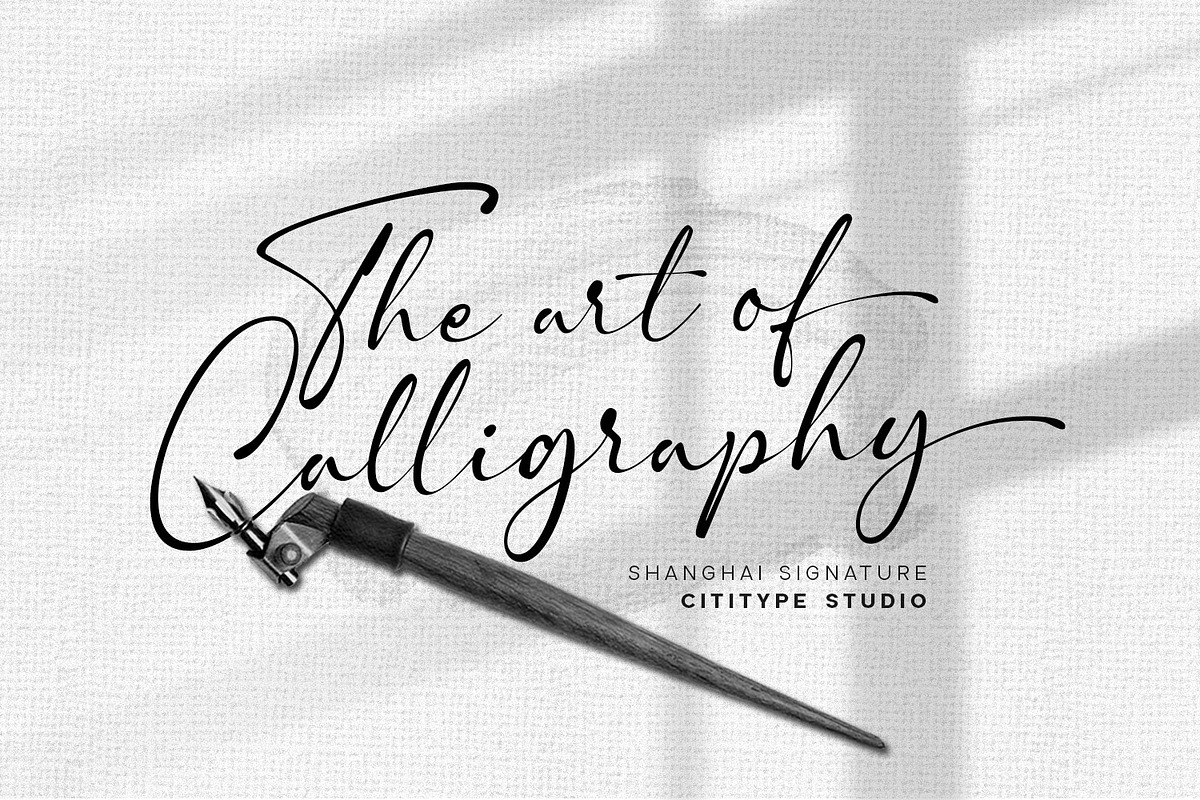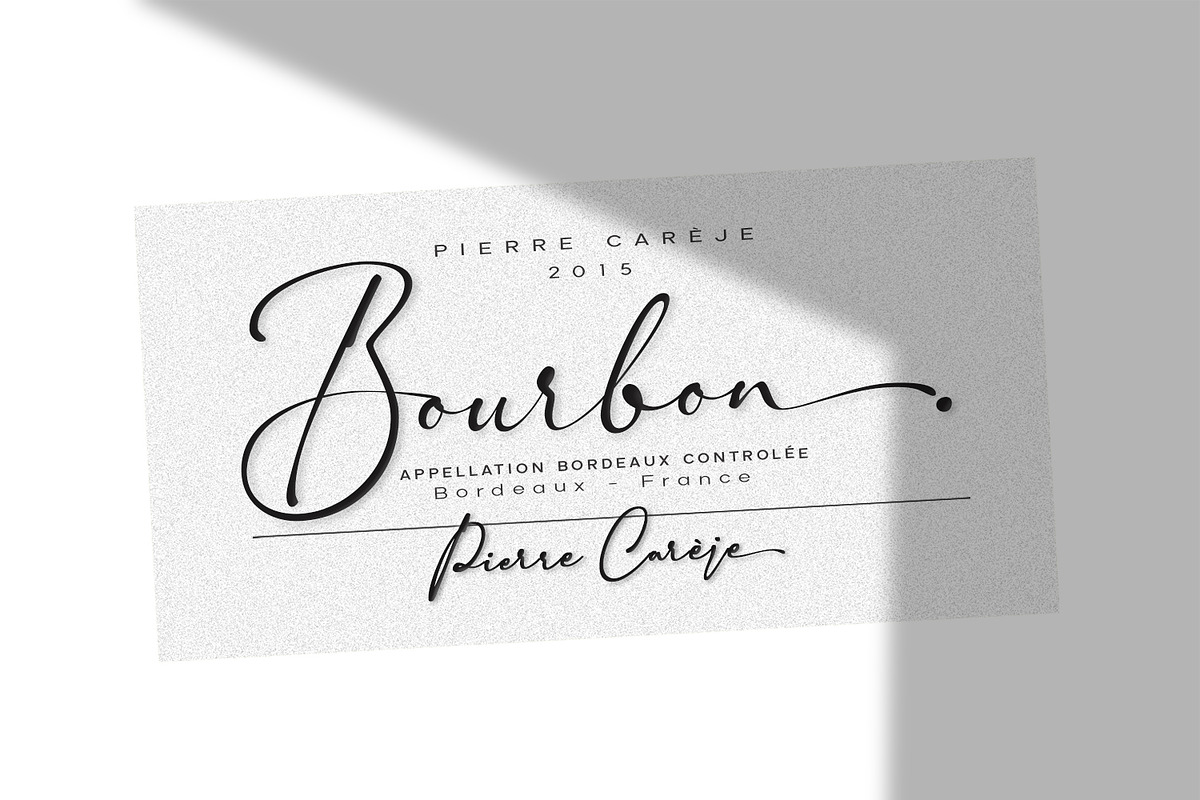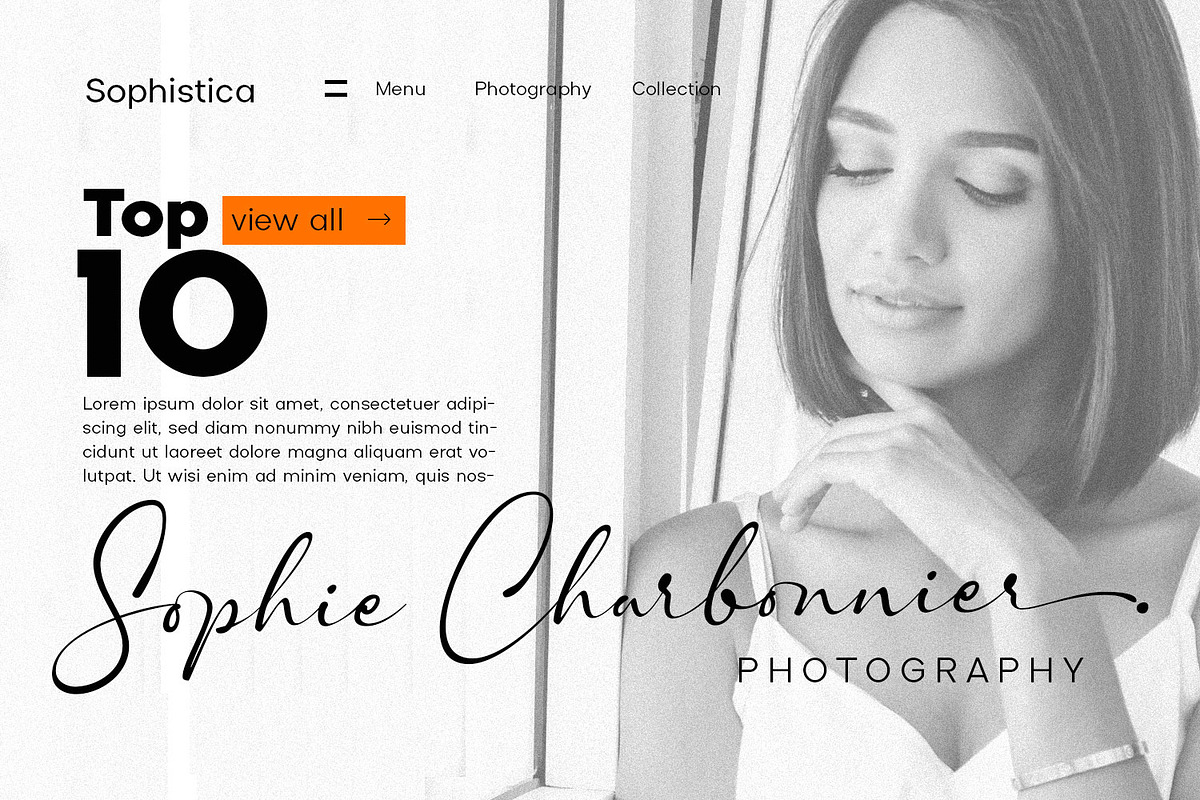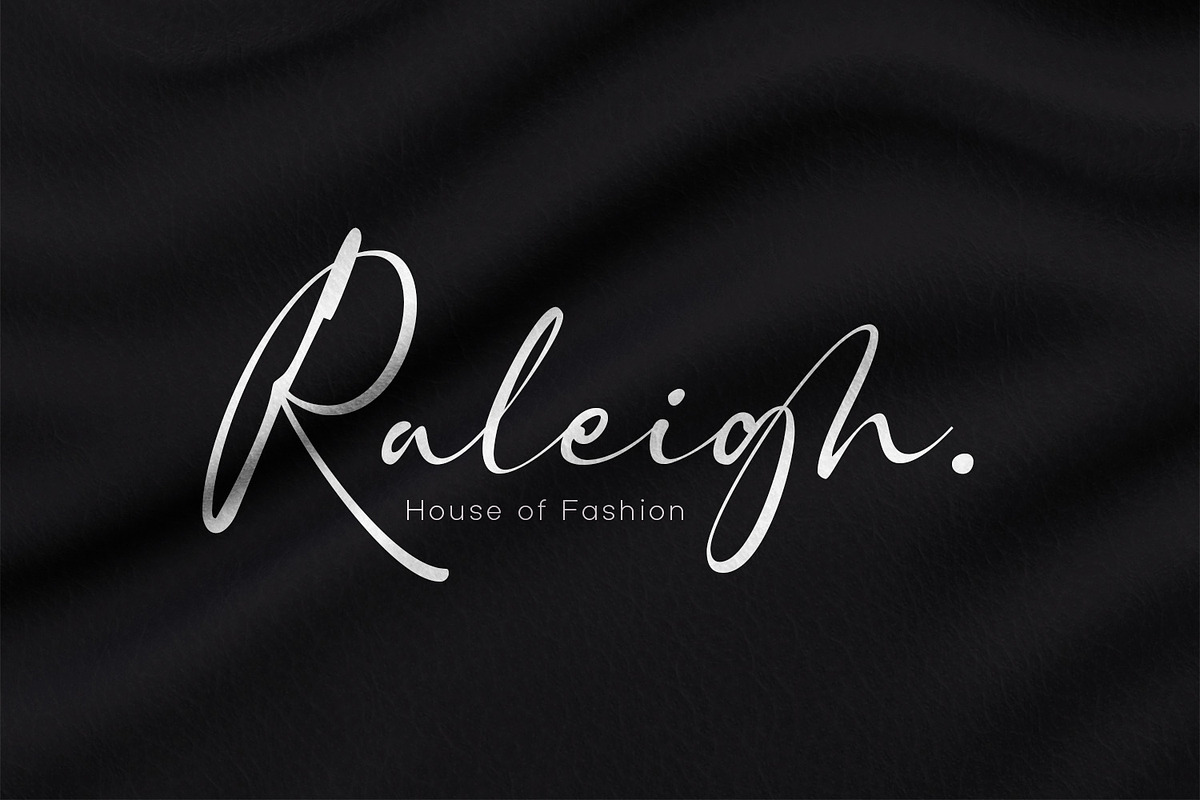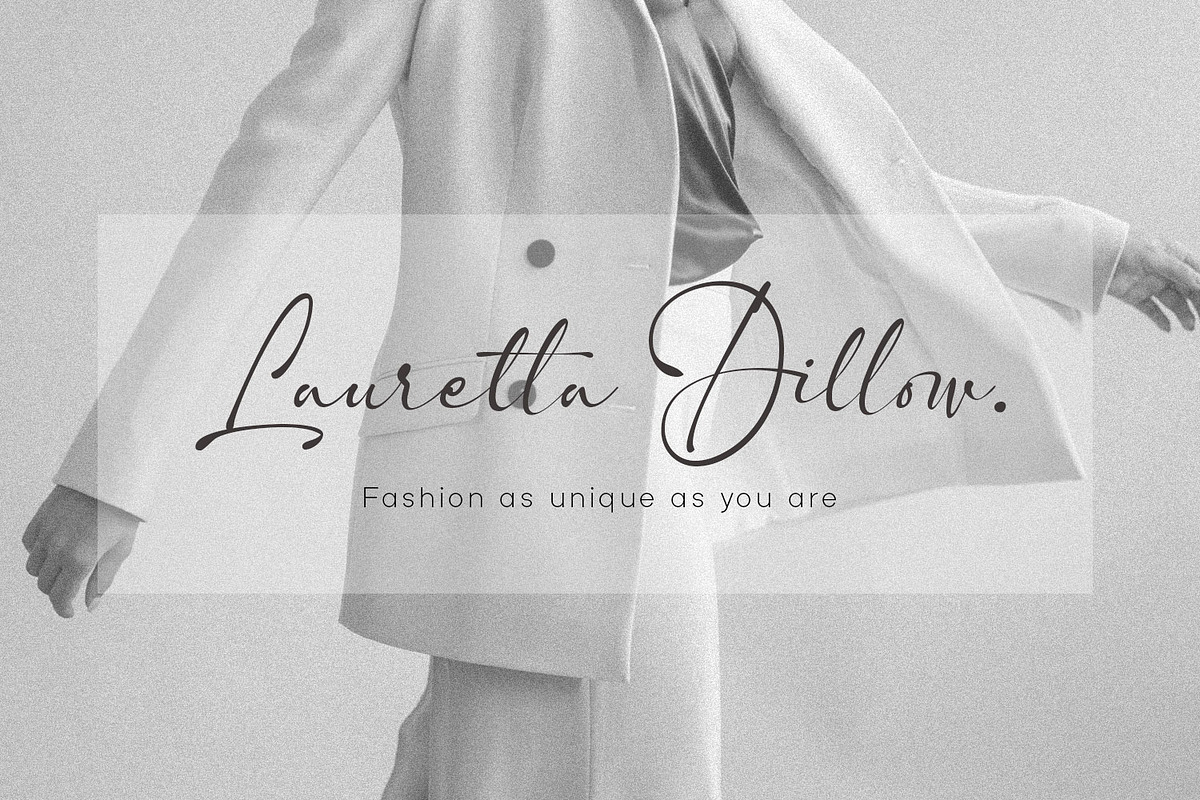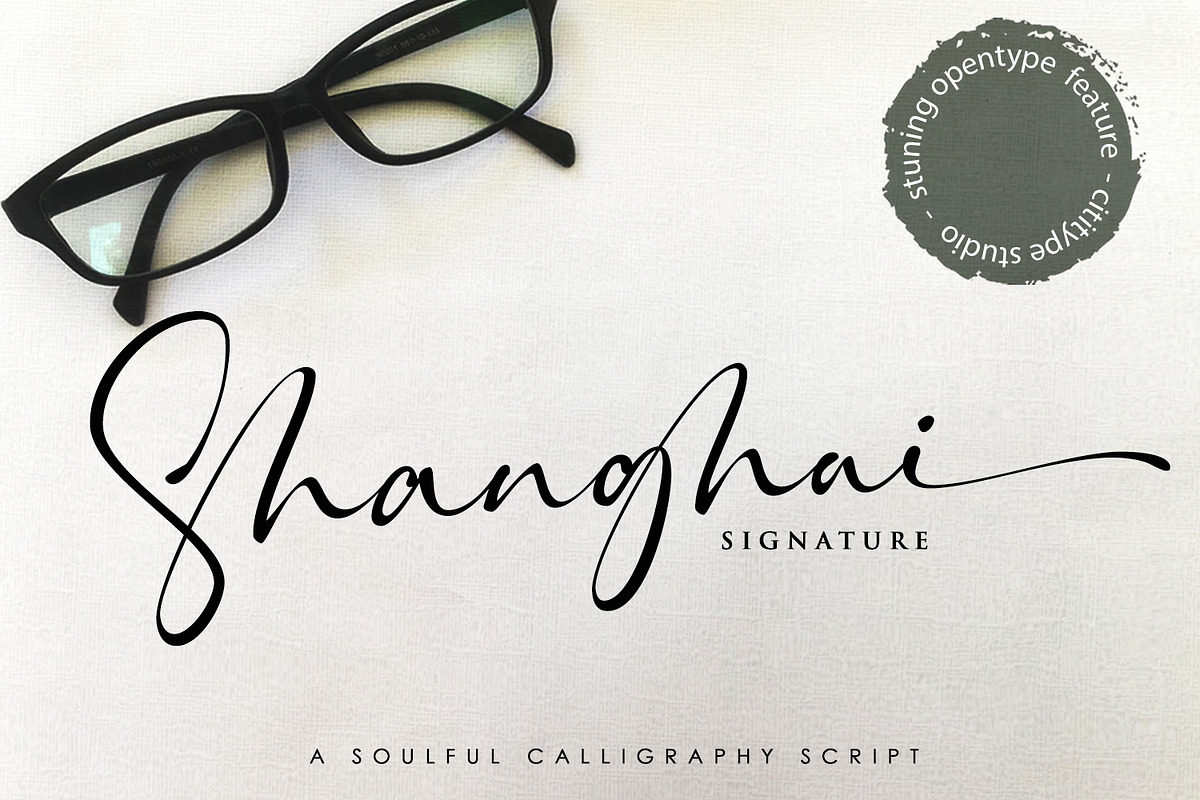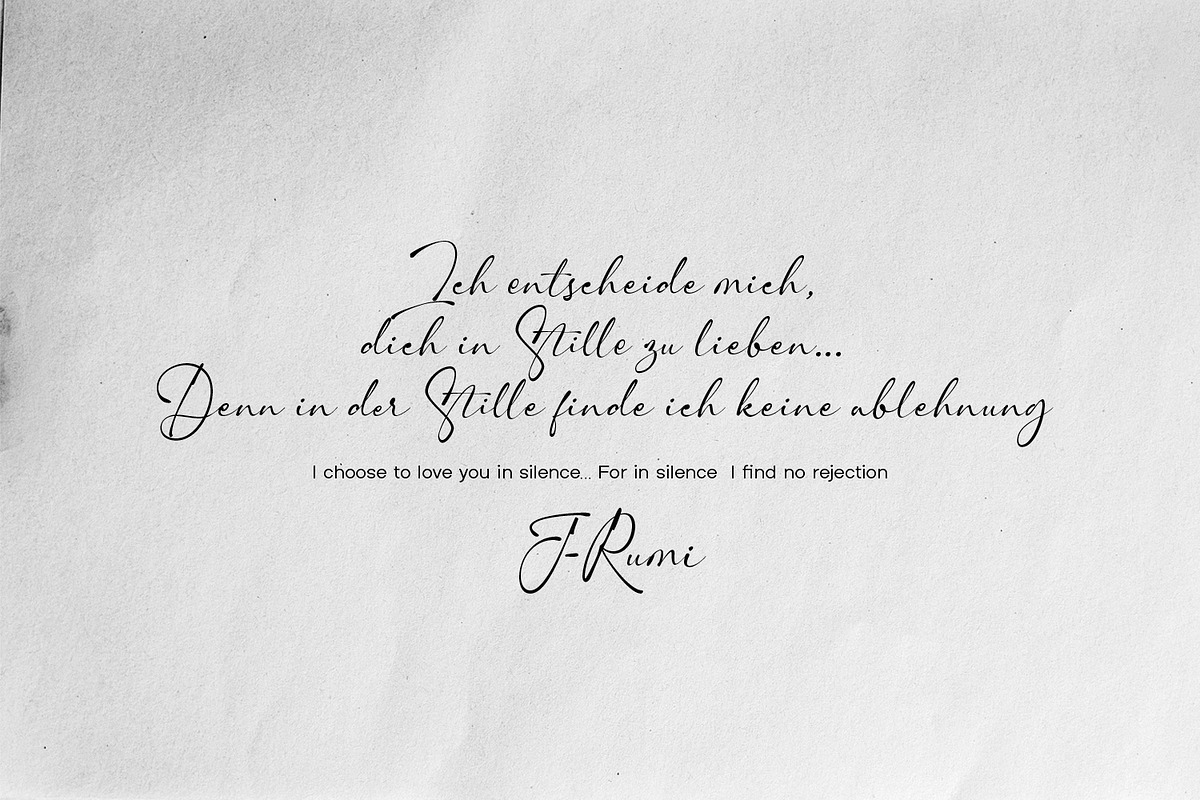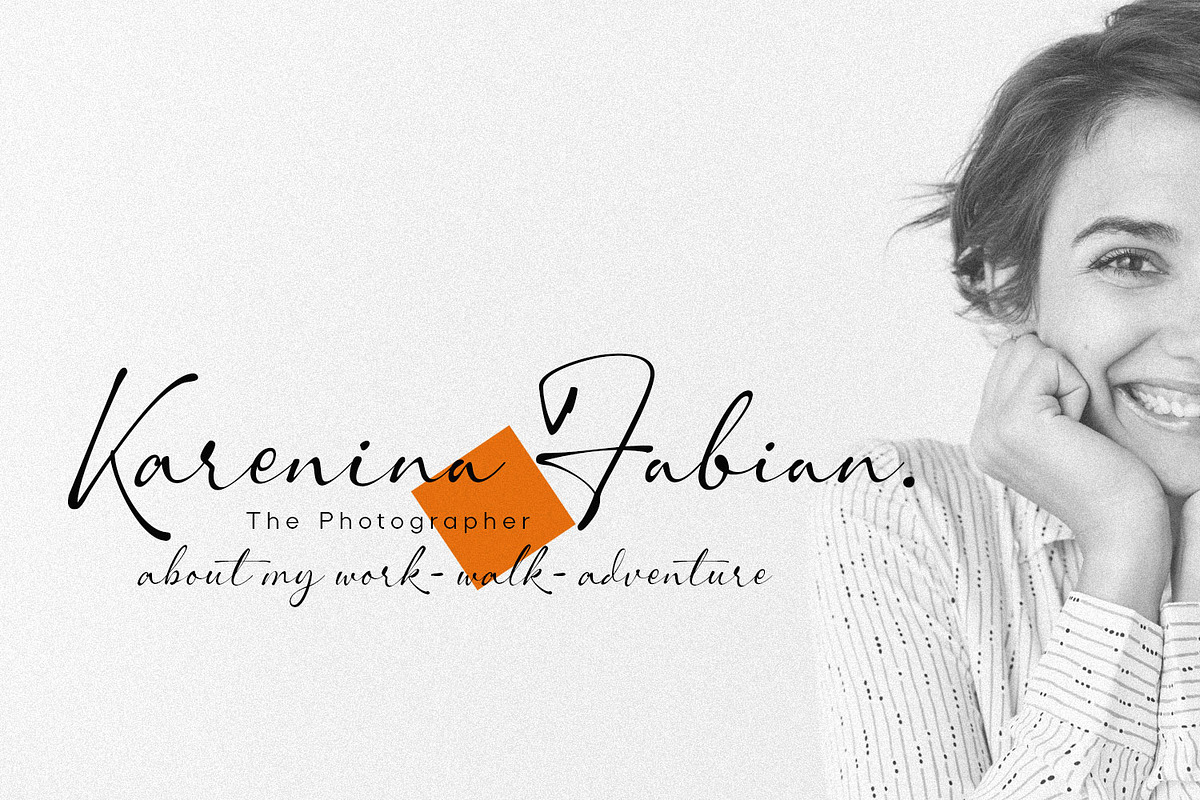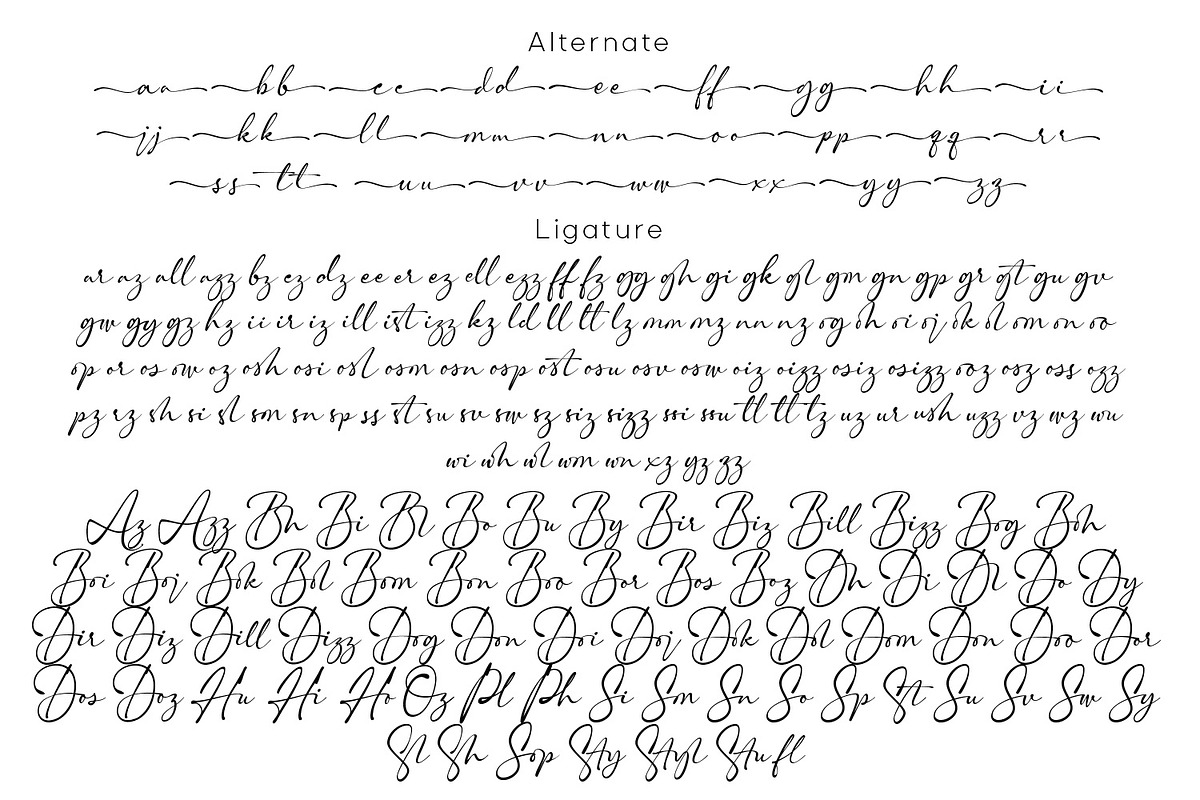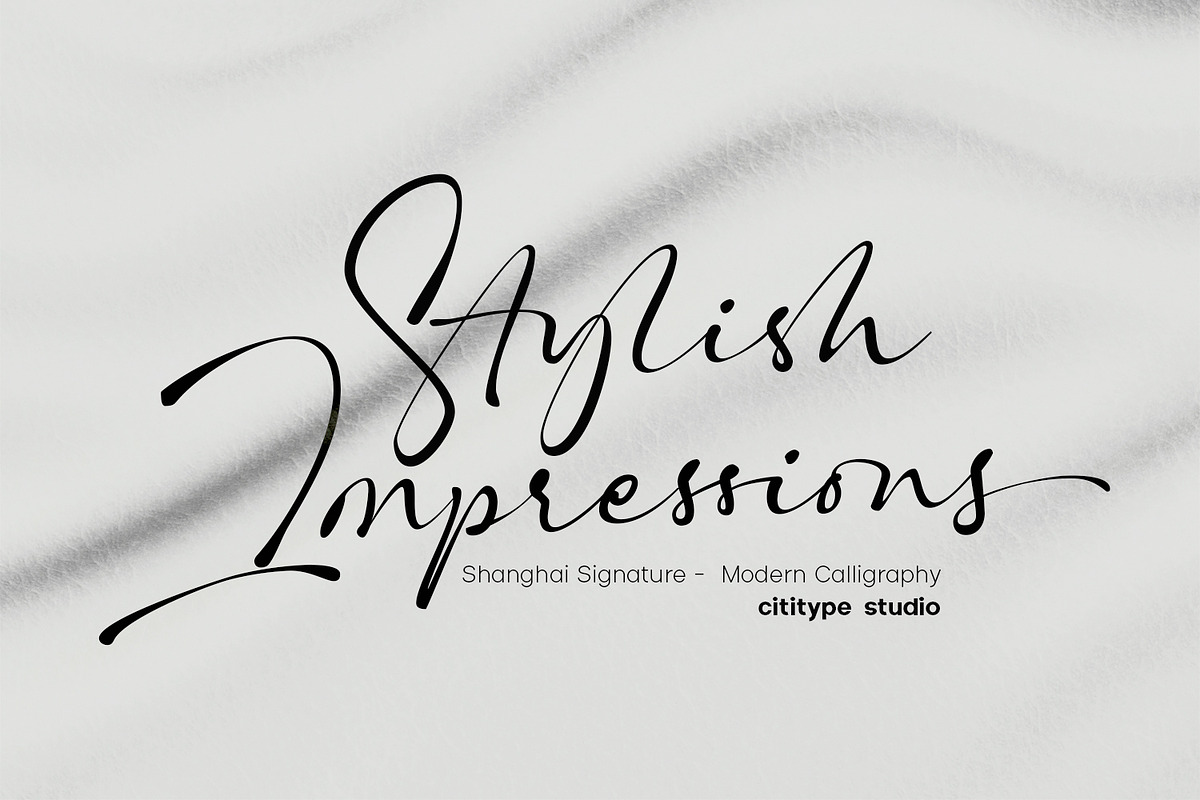
Shanghai Signature
Shanghai Signature is a chic and natural calligraphy with natural impression.
this font has a lot of alternate and stunning ligature. each glyph has stylistic alternate and 181 ligature that make you surprise and strengthen natural touch.
not only this, we also equipped each lowercase with magical swash beginning and ending.
this font is a great choice for modern branding and packaging. perfect for creating signature logos and watermarks for photography studio or wedding invitation and logo signature.